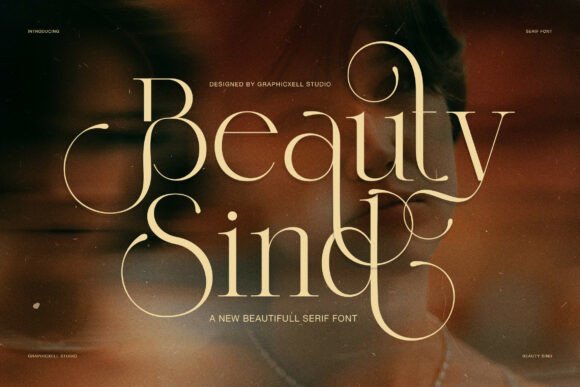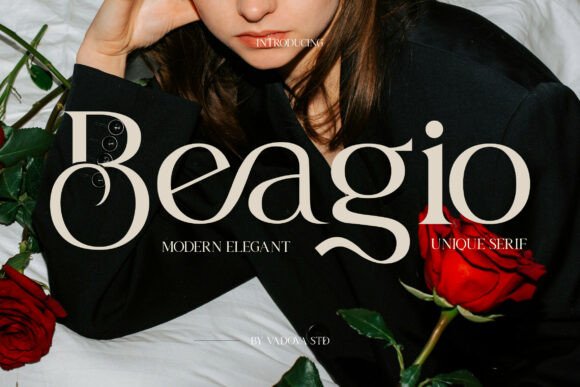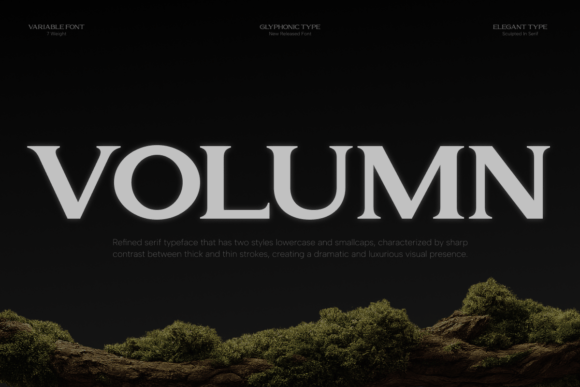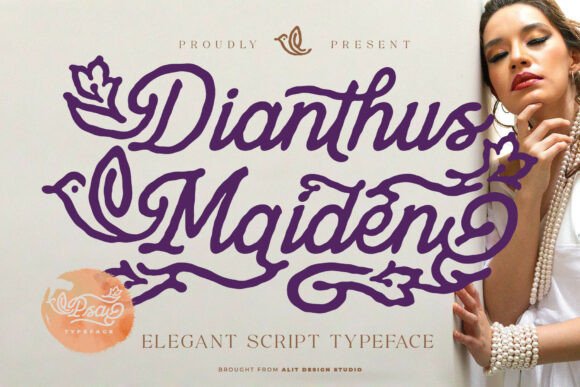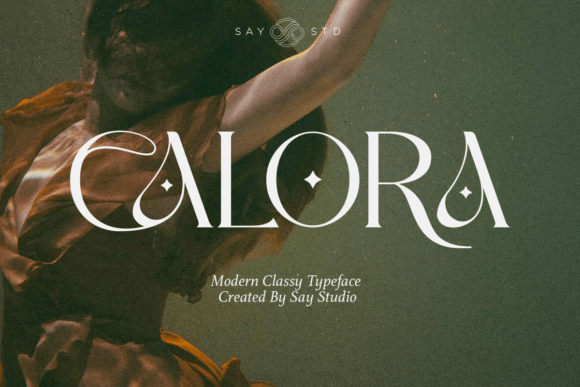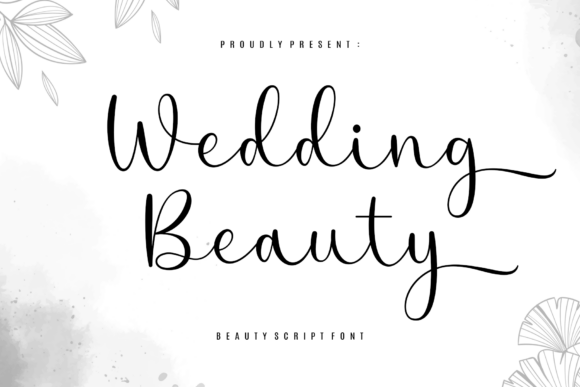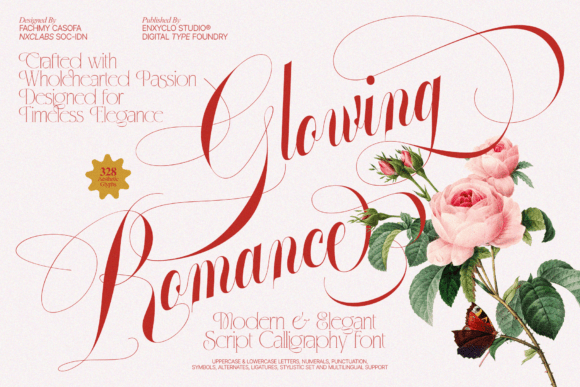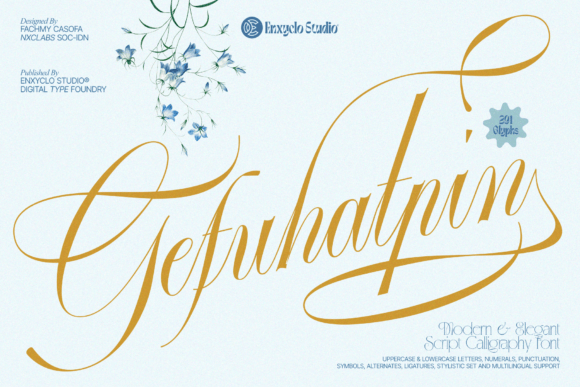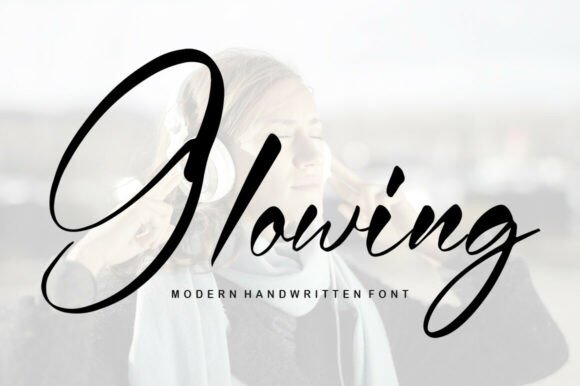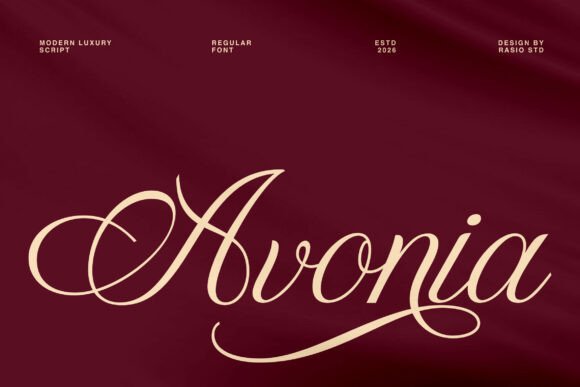
16 Gorgeous Luxury Fonts for Beauty Brands in 2026
The best luxury fonts for beauty brands sell a feeling before a single product is read: calm, expensive, cared-for. A beauty wordmark sits on a serum bottle, a compact and a phone screen, so these fonts have to look refined large and stay clear small. That balance is what luxury fonts for beauty brands are really chosen for.
This guide sorts 16 fonts by where they work on a beauty identity, the logo, the packaging, the signature accents and the friendlier touches, so you can pick by job rather than by name.
How to choose luxury fonts for beauty brands
A beauty identity usually needs two voices, and most luxury fonts for beauty brands fall into one of these jobs.
- The logo: a refined serif that reads premium on a bottle and small on a cap.
- The accents: a flowing script for a signature line or a limited edition.
- The warmth: a soft handwritten face for a friendly, approachable line.
- The system: a duo that hands you a matching serif and script in one buy.
Luxury serif fonts for beauty brand logos
Start with the wordmark. These luxury serif fonts for beauty brands read expensive at size and hold their poise on a small cap or label.
Beauty Sind
Beauty Sind is a refined serif with a strong fashion character and long, elegant lines. Among luxury fonts for beauty brands it makes a confident logo, reading editorial and premium on a serum box or a salon sign. The tall forms want a generous size where the styling shows. Pair it with a clean sans for ingredients and weights. For a beauty brand that wants a fashion-magazine wordmark, Beauty Sind is a graceful serif worth a close look.
Beagio
Beagio is a modern elegant serif with sophistication and emotional depth, built for romantic branding. As luxury fonts for beauty brands go it feels warm rather than cold, which suits skincare and wellness lines. The refined forms carry a wordmark with calm confidence and stay legible smaller. Use it for the name and a minimal sans for detail. For a beauty brand that wants a tender, considered serif logo, Beagio is a lovely font worth trying.
Vorello
Vorello is a refined serif with elegant high-contrast strokes and graceful curves. It is one of the most editorial luxury fonts for beauty brands here, lending fragrance and prestige skincare a glossy, magazine feel. The contrast reads expensive at size, so keep the logo generous and the print clean. Pair it with a plain sans below. For a beauty brand that wants a high-fashion serif wordmark, Vorello is a polished font worth a place on the shortlist.
Volumn
Volumn is a refined serif made to express luxury, elegance and dramatic visual impact. Among luxury fonts for beauty brands it is the boldest serif, giving a premium beauty logo real presence on a box or campaign. Use it large for the name and a minimal sans for everything small. The dramatic forms want a comfortable size. For a beauty brand that wants a serif wordmark with confidence and drama, Volumn is a strong font worth a look.
Dianthus Maiden
Dianthus Maiden is an elegant serif with delicate, floral-leaning refinement. It sits among the prettiest luxury fonts for beauty brands, suiting clean-beauty, floral and bridal-adjacent lines that want softness. The fine detailing reads best large, so keep it to the wordmark and headers. Pair it with a clean sans for the practical text. For a beauty brand that wants a soft, romantic serif logo, Dianthus Maiden is a graceful font worth trying.
Calora
Calora is a playful yet elegant serif with teasing curves that stay refined. Among luxury fonts for beauty brands it adds personality without losing class, good for a beauty line that wants charm as well as polish. Use it for the wordmark and short headings where the curves can show, paired with a plain sans. The character reads best at size. For a beauty brand that wants an elegant serif logo with a little wink, Calora is a charming font worth a closer look.
Elegant script fonts for beauty packaging
For signature lines and packaging, a flowing script adds romance. These elegant luxury fonts for beauty brands give a hand-signed, premium feel.
Wedding Beauty
Wedding Beauty is an elegant script with timeless grace, drawn for romantic work. As elegant fonts for beauty packaging it gives a signature line or a limited edition a hand-signed, premium feel. Keep it to the brand name or a short accent, since scripts tire the eye in bulk, and pair it with a clean serif or sans. The flowing forms want room. For a beauty brand that wants a romantic script accent on its packaging, Wedding Beauty is a lovely font worth a look.